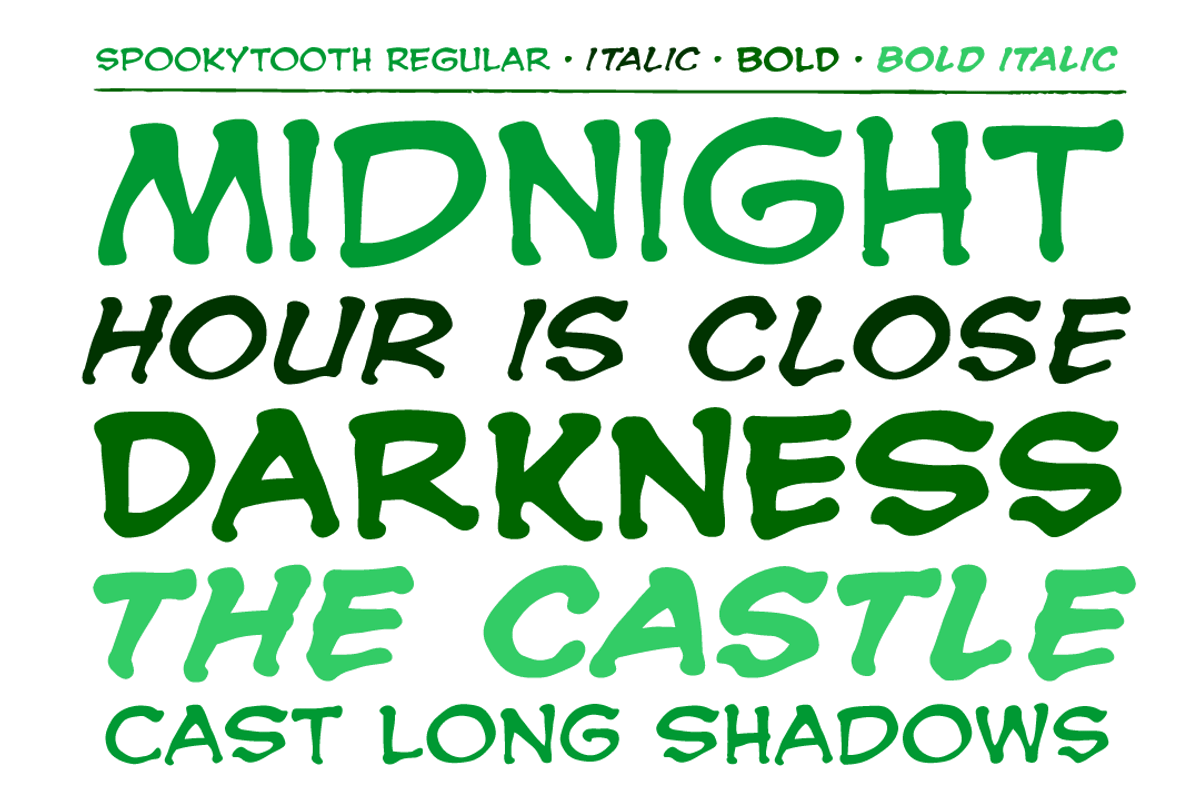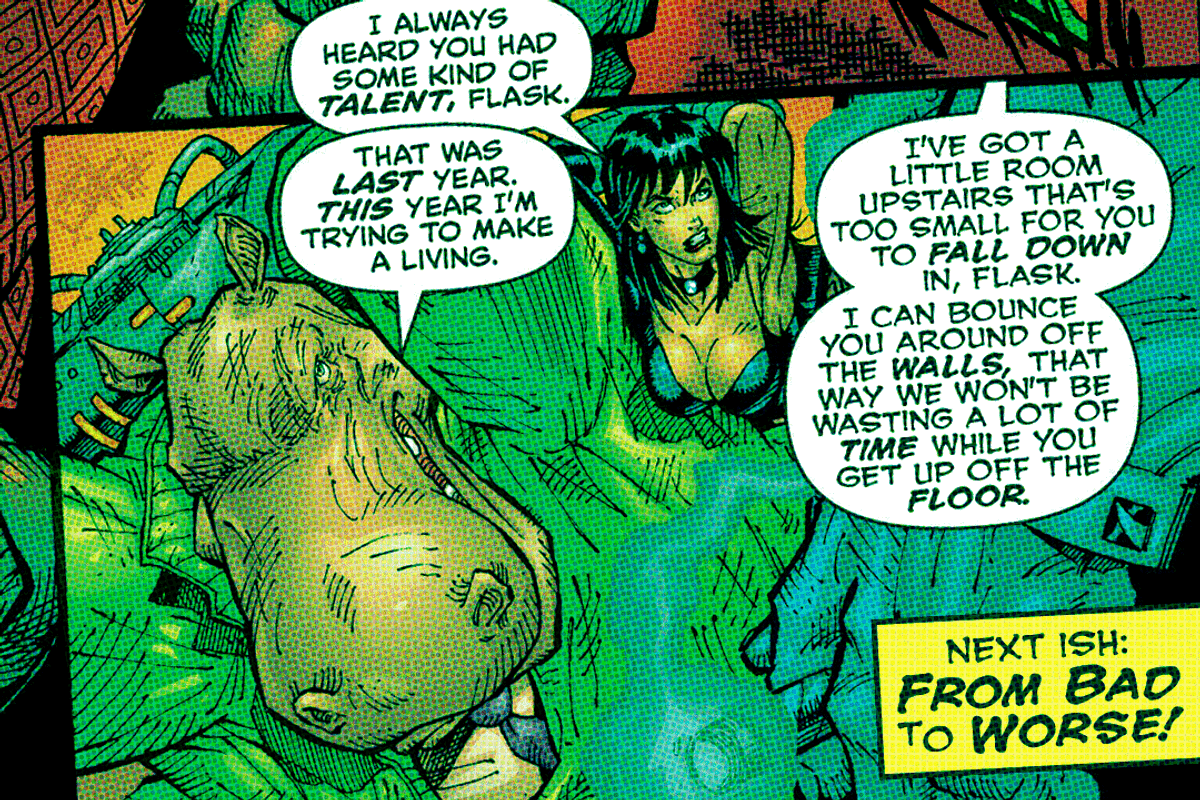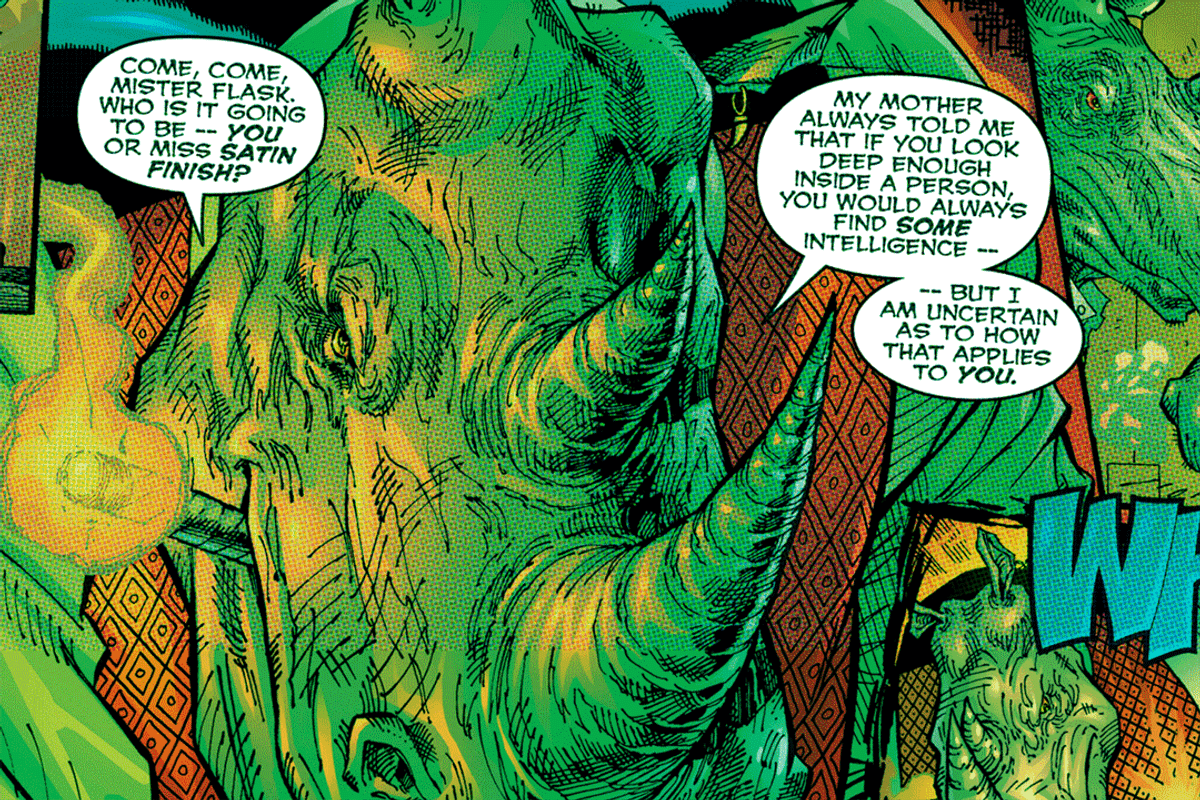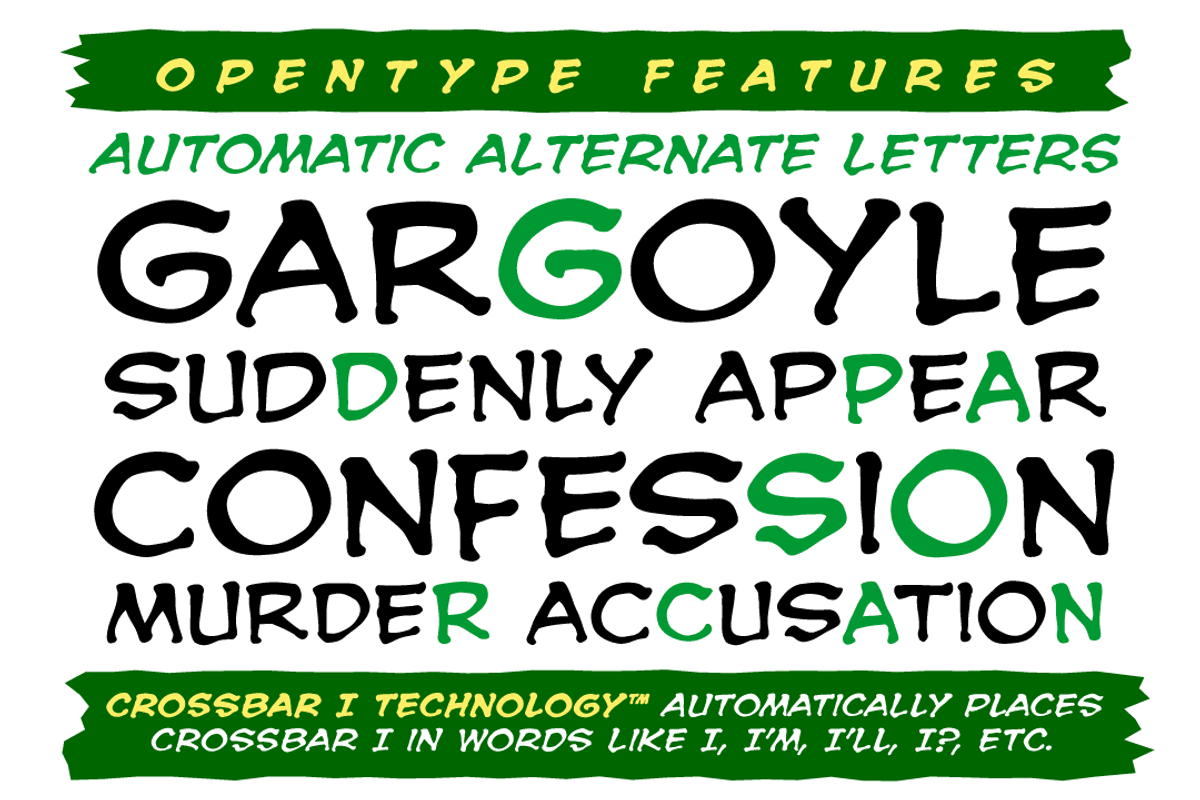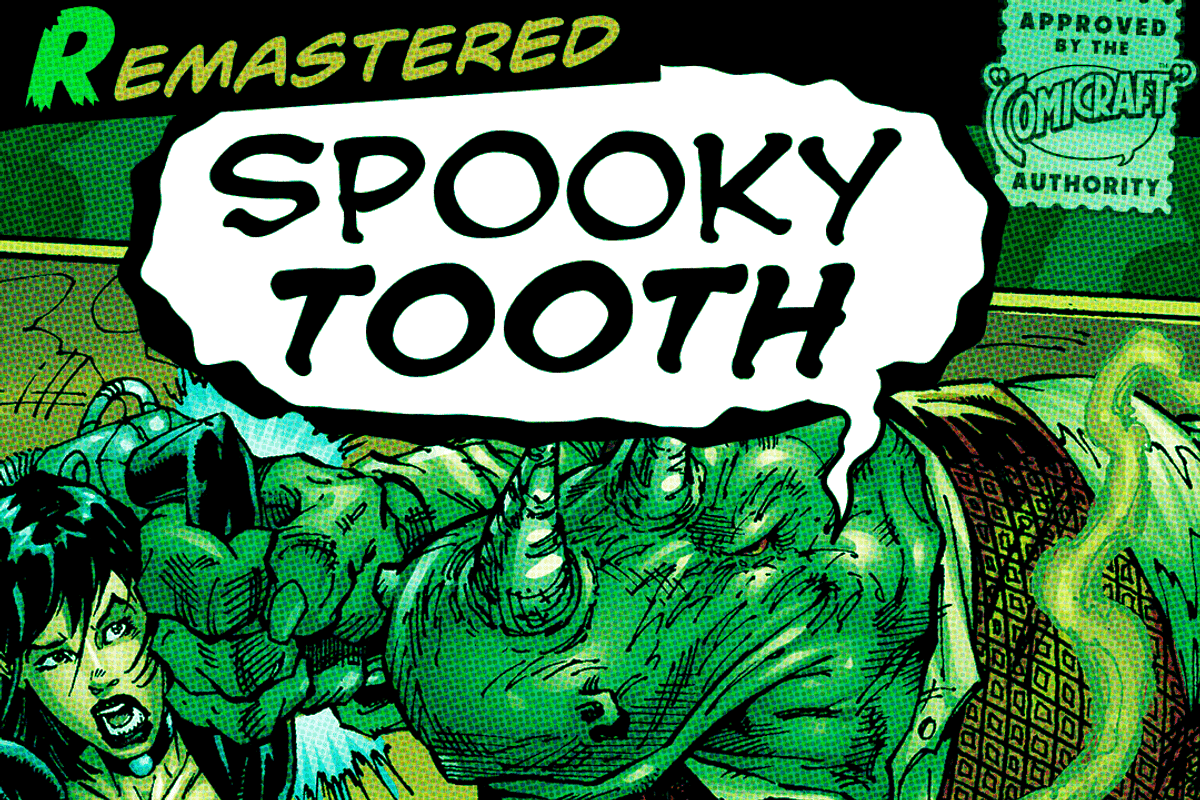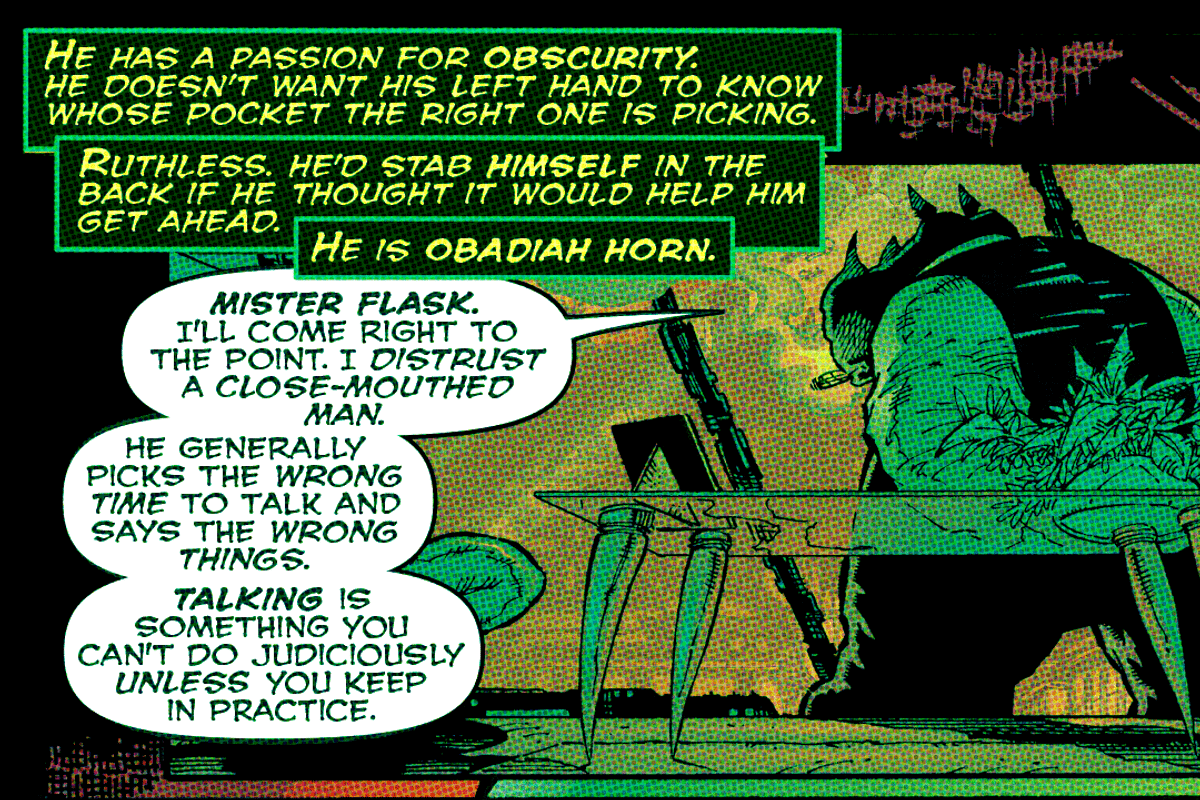
Spookytooth
Spookytooth by Comicraft Fonts is a font selected for branding, posters, packaging, typography.
- Remastered Spookytooth includes a new Bold weight, automatic alternate letters, improved spacing & kerning, additional European, Vietnamese
Spookytooth by Comicraft Fonts fits naturally into Branding, posters, packaging, typography.